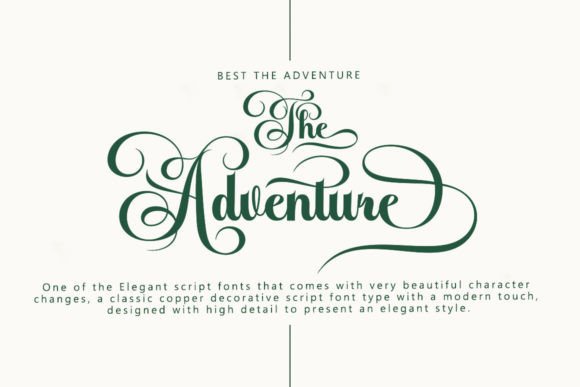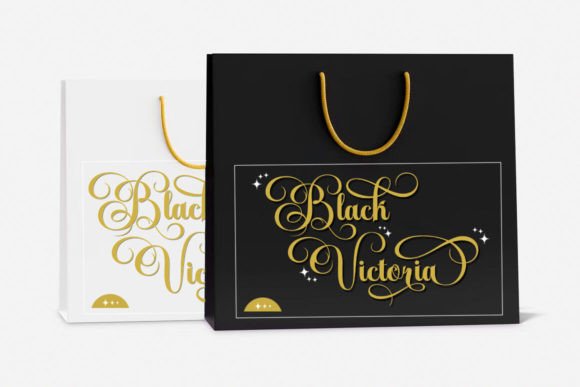
The Bonarty Font
Unleash your creativity with the Bonarty Script, an elegantly designed font that merges classic copper decorative scripting with a fresh, modern twist. Every letter has been meticulously crafted to depict an undeniable sense of elegance, with attractive and eye-pleasing typography that speaks of femininity, sensuality, and glamor. With its clean simplicity, the Bonarty Script is exceptionally easy to read and boasts of luxurious letter connections that give it a distinct uniqueness.